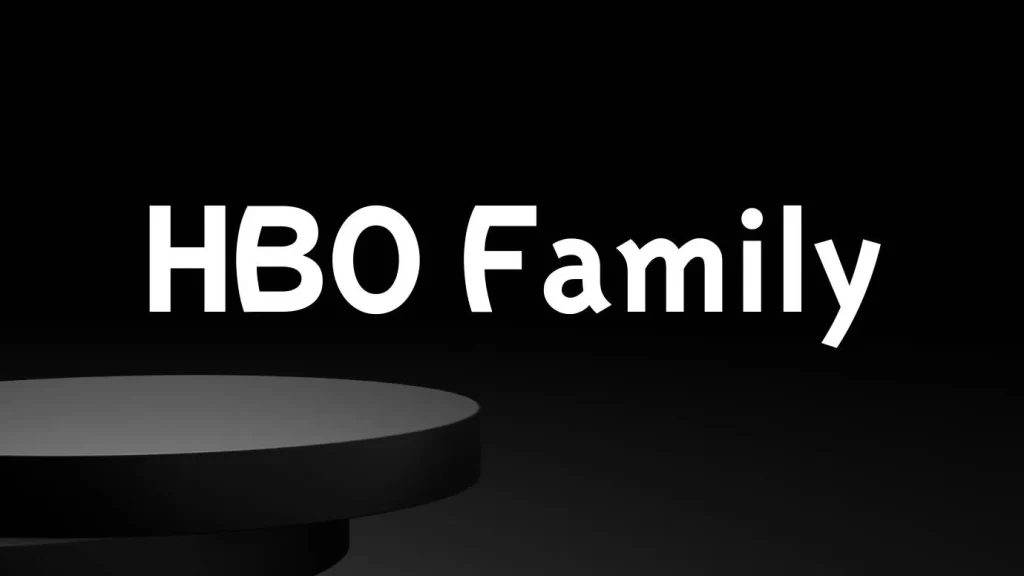
The font subfamily is Regular. The text style may change depending on the letters chosen. Harold Lohner is the designer of this style. HBO Family Font gives almost every design a heavy look, so it would be an ideal choice for big text projects.
What Are the Qualities of HBO Family Font?
Advantages of Using HBO Family Font
The typeface is ideal for branding projects, houseware designs, and product packaging. In addition to making better designs, this typeface will also make better pairi with brady bunch font.
The letters of this font demonstrate its versatility. With full concentration and experience, each letter has been created. Using it can make a design stand out and be unique. Hence, once a designer understands its capabilities, they will use it in many tasks.
Therefore, its letters didn't contain any errors. To form covers and artwork designs, you can also create business cards, logos, and product designs with clean and elegant textures. Web development can also be done on it.
The font can be used in a wide variety of graphic design applications. It is a fancy text style.